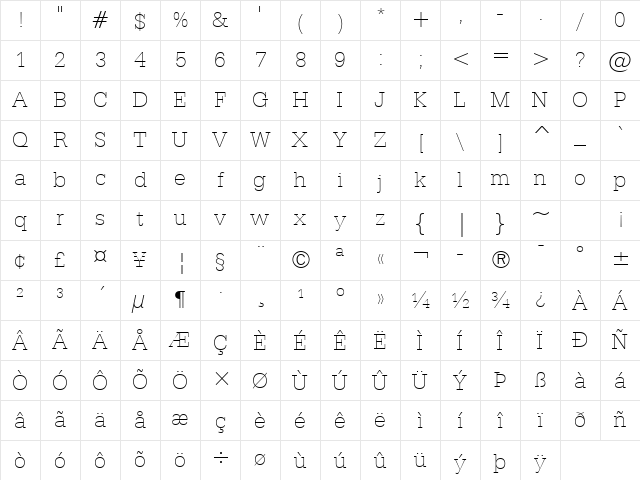
Serifa Th BT Thin Free Font
Serifa Th BT Thin
Serifa Th BT Family
Design Context for Serifa Th BT
Serifa Th BT carries the refined structure of traditional serif typography, with bracketed terminals and considered proportions that communicate credibility and craft. Its slender proportions lend an understated elegance to any composition.
Pro Tip: Use Serifa Th BT with generous line-spacing for the most refined reading experience - its light weight benefits from room between lines.